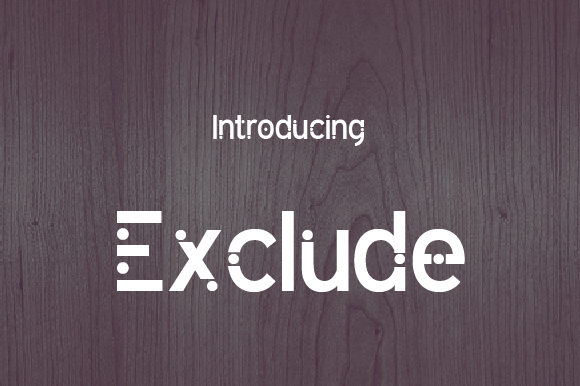
Introducing Exclude Font: The Ultimate Anti-Stream Typeface for Creative Projects
In the world of typography, a new font has emerged that’s making waves with its unique style and versatility. Say hello to Exclude Font, an anti-stream typeface that’s perfect for a wide range of creative projects. From name cards to posters, logos to magazine covers, banners to large-scale artwork, Exclude Font is the perfect choice for designers and crafters looking to add a touch of personality to their work.
What is Exclude Font?
Exclude Font is a distinctive typeface that defies the conventional norms of traditional fonts. Its anti-stream design makes it stand out from the crowd, giving it a fresh and modern look that’s sure to grab attention. The font’s unique style is characterized by its bold, chunky lines and carefully crafted letterforms that exude a sense of confidence and creativity.
Key Features of Exclude Font
- Unique Anti-Stream Design: Exclude Font’s anti-stream design makes it a one-of-a-kind typeface that’s sure to make your projects stand out.
- Versatile: This font is perfect for a wide range of creative projects, from print materials like name cards, posters, and magazines to digital applications like logos, banners, and large-scale artwork.
- Bold and Chunky Lines: The font’s bold, chunky lines give it a rugged, edgy feel that’s perfect for designers and crafters who want to add a touch of personality to their work.
- Carefully Crafted Letterforms: Each letterform in Exclude Font has been carefully crafted to ensure that it looks great in any context, whether you’re using it for a logo, headline, or body text.
Use Cases for Exclude Font
Exclude Font is a versatile typeface that can be used in a wide range of creative projects. Here are some use cases to get you started:
- Name Cards: Add a touch of personality to your business cards or name cards with Exclude Font’s unique anti-stream design.
- Posters: Create eye-catching posters that grab attention with Exclude Font’s bold, chunky lines.
- Logos: Use Exclude Font to create a memorable logo that reflects your brand’s personality and style.
- Magazines and Covers: Add a touch of sophistication to your magazine covers or interior pages with Exclude Font’s carefully crafted letterforms.
- Banners: Create large-scale banners that make a statement with Exclude Font’s bold, anti-stream design.
- Large-Scale Artwork: Use Exclude Font to create stunning large-scale artwork that’s sure to turn heads.
Why Choose Exclude Font?
So why choose Exclude Font for your next creative project? Here are just a few reasons:
- Unique Style: Exclude Font’s anti-stream design makes it a one-of-a-kind typeface that’s sure to make your projects stand out.
- Versatility: This font is perfect for a wide range of creative projects, from print materials to digital applications.
- Ease of Use: Exclude Font is easy to use and can be easily integrated into your design workflow.
- High-Quality Design: The font’s carefully crafted letterforms ensure that it looks great in any context.
In conclusion, Exclude Font is a unique and versatile typeface that’s perfect for designers and crafters looking to add a touch of personality to their creative projects. With its anti-stream design, bold and chunky lines, and carefully crafted letterforms, this font is sure to make a statement. Whether you’re working on a name card, poster, logo, magazine cover, banner, or large-scale artwork, Exclude Font is the perfect choice.